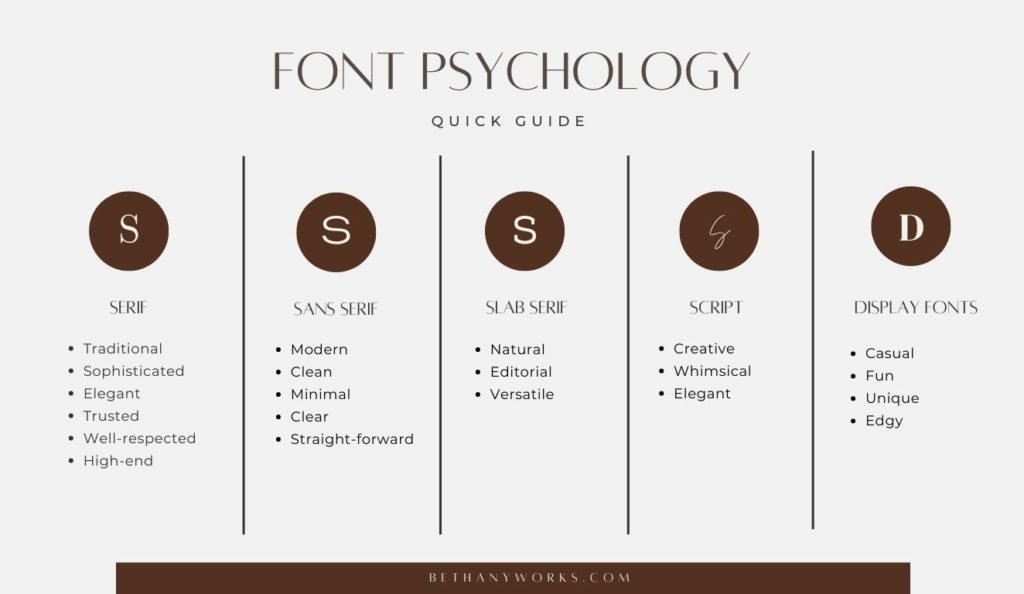
Psychology of Logo Design: How to Make Your Logo Remarkable
Creating a logo is the most important thing in building your brand identity, to be remembered by people. A strong logo helps people instantly recognize your brand wherever they see it. But to design a logo that truly connects, it’s important to understand the psychology of logo design, including colors, shapes, and fonts.
From colours and shapes to fonts and layout, every element can influence how people feel about your brand. Here’s what you need to know about the logo design’s psychology..
Key Takeaways
• Colours, shapes, and fonts each carry emotional and psychological meaning.
• Your logo is your brand identity that represents your brand and product, so you need to make it remarkable.
• Simple, bold logos are easier for people to remember.
• Typography influences how your brand is perceived — whether it feels modern, classic, playful, or professional.
Psychology of Logo Design
A logo is far more than just a pretty graphic — it’s a psychological trigger. In the split second it takes for someone to glance at a logo, their brain begins forming judgments about the brand it represents. Here are some elements of logo design based on a psychological approach.
1. Color Psychology of Logos
Colors and meaning behind it
Colors and meaning behind it | Image Source: MyOptiMind
The psychology of colour has a strong effect on how we feel and react. Just like a fresh coat of paint can change the mood of a room, the colours in a logo can create an instant emotional response. Some colours make food look tasty, while others might seem off-putting — a reaction shaped by evolution.
In logo design, brands usually stick to three colours or fewer and use them across their website, packaging, and marketing to build a strong, recognizable identity. By understanding how colours influence emotion and behaviour, you can make smarter design choices, and the market will easily recognize you.
For example, red is often linked to passion, power, and energy. But in some cultures or situations, it can also mean danger or anger. Interestingly, red is also known to increase appetite, which is why many fast food logos use it.
2. Psychology of Shapes in Logo Design
Shapes and the meaning behind them
Shapes and the meaning behind them | Image Source: KIMP
Shapes are the foundation of every design. Our brains are naturally wired to recognize and remember shapes — it’s one of the ways we learn and make sense of the world. That’s why bold, simple shapes tend to stick in our minds and leave a strong impression.
By choosing the right shapes, you can build a stronger emotional and psychological connection between your brand and your audience. It’s important to know what each shape says about your brand and how to use it effectively.
Even the smallest details — from lines and curves to the overall outline — count as shapes. Since most people only glance at a logo, the shape is usually the first thing they notice. Shapes can make your logo feel bold, playful, stable, high-tech, or anything in between.
3. Psychology of Fonts in Logos
Fonts and how they identify your brand
Fonts and how they identify your brand | Image Source: Bethany Works
The style of a font says more than just the words it spells out — it also sets the tone. According to Adobe, font psychology is the study to learn how fonts affect people’s feelings, responses, and thoughts in viewing typography.
Each font can create a certain mood or impression, so it’s important to choose one that fits your message. There are five main types of fonts: serif, sans serif, script, handwritten, and decorative. Each has its personality, shaped by how it’s been used over time.
For example, if a brand wants to look serious and professional, it should go for clean, classic fonts. Thus, picking the right font helps your audience connect with your design in the right way, without saying a word.
Tips to Create a Logo
There are a few tips that you can use to make your logo design always relevant, such as:
1. Work with the Designer
Choose a designer whose style fits your vision. Look at their past work to see if it matches what you’re looking for. Say clearly what you want and expect, and ask questions if you’re not sure about something, because good design needs teamwork. Once you agree on the work and price, make sure there’s a contract.
2. The Process of Designing
Design often takes a few rounds of changes, so patience is key. Once the logo is final, make sure you receive all the files you need and understand how to use them. Good communication and collaboration throughout the process will lead to the best result.